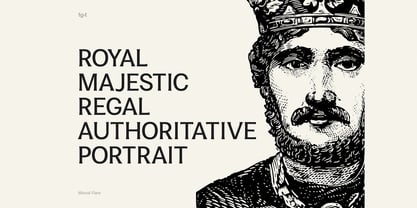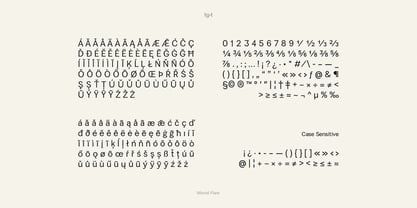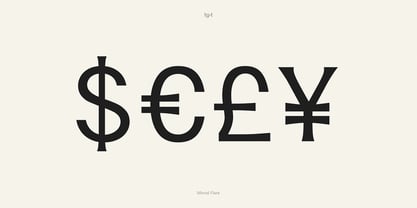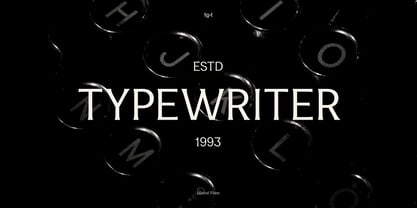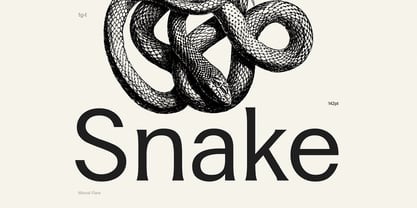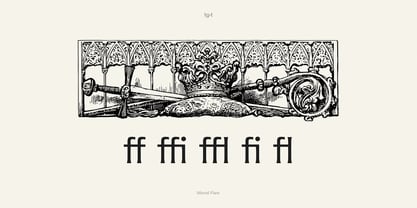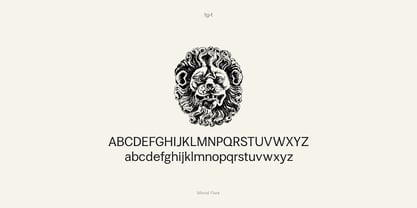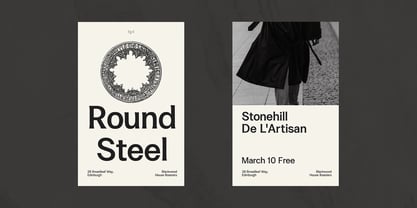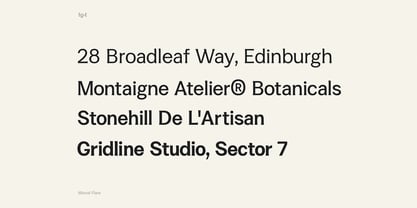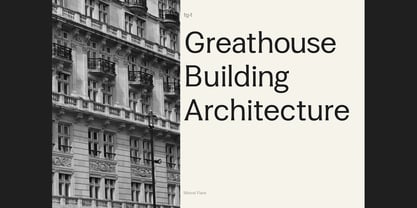
Minval Flare
by Tiga Type
The Minval Flare Font Family was designed by Agit Akbulut and published by Tiga Type. Minval Flare contains 4 styles and family package options. More about this family
Minval Flare is a refined modern serif typeface crafted for elegant branding, editorial design, luxury packaging, and sophisticated digital experiences. It features clean contemporary proportions and subtle flared terminals, offering a timeless yet distinctive personality that excels in both large headlines and readable body text. Minval Flare enables smooth weight transitions from Regular to Bold, providing designers with creative flexibility while keeping projects lightweight and organized. Whether designing premium logos, fashion branding, magazine layouts, beauty packaging, websites, or social media content, Minval Flare adapts seamlessly to both print and screen.
Designers: Agit Akbulut
Foundry: Tiga Type